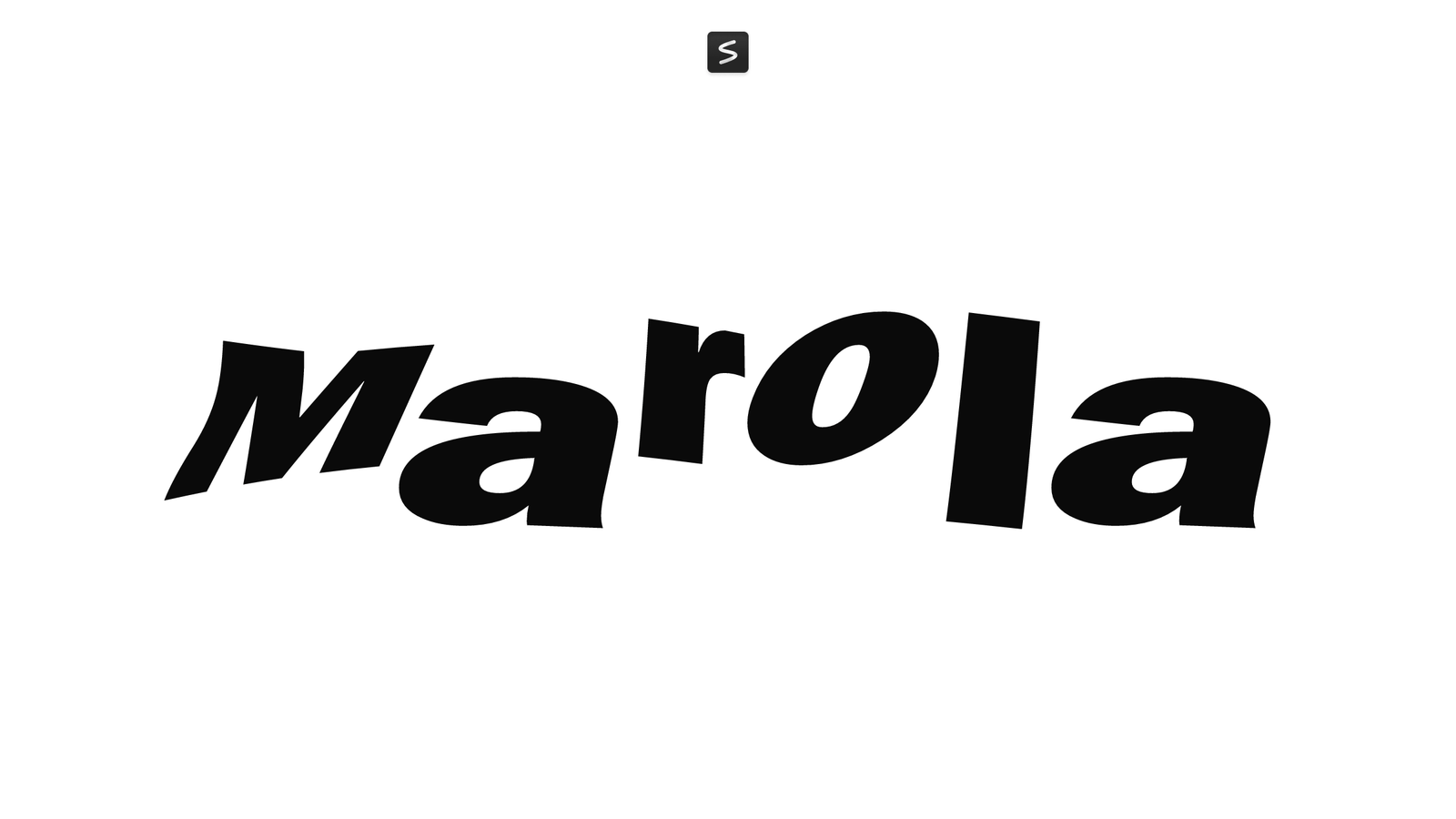
Marola is a distorted display font designed by Né-Dés that twists and warps letterforms into an abstract, playful shape. The characters bend and flow with an organic quality, making standard text feel more like liquid or molten forms. It reads best at larger sizes where its expressive distortions become a feature rather than an obstacle.
This font works well for posters, album covers, headlines, and any design that benefits from a bit of visual chaos. It’s particularly suited to projects where you want to catch attention through form alone, whether that’s editorial spreads, music promotional materials, or experimental graphic work.
If you’re after something that breaks the rules of conventional letterforms and wants to make text itself into a visual statement, Marola offers that warped, unconventional energy.